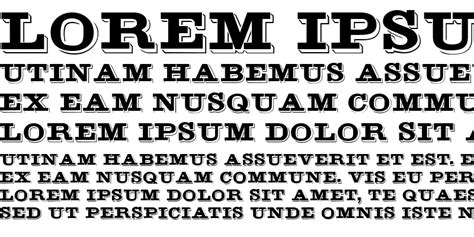
Gold Rush Font. Web this old classic font has an interesting history, it was originally cut with lowercase by the bruce type foundry in 1865 and. Web complete family of 4 fonts: